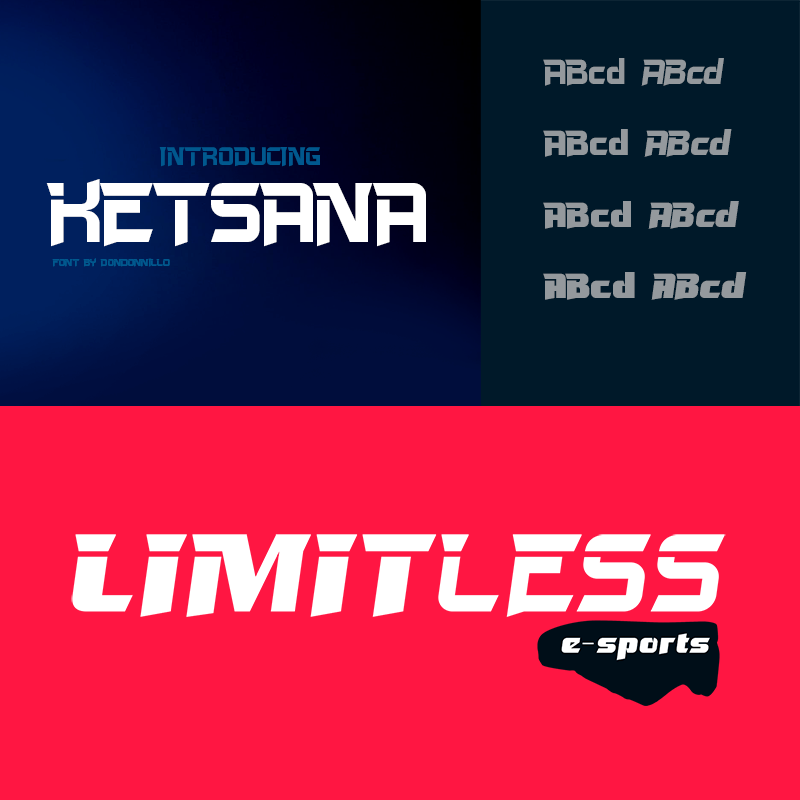
Font name: | Ketsana |
Author: | Onyx Font Foundry |
Note by Onyx Font Foundry | |
Ketsana features an incredibly minimalist and sporty style, making it great for futuristic, techno, hi-tech, and sports logo design. for commercial use grab the font here: https://www.creativefabrica.com/product/ketsana/ref/163291/ https://www.behance.net/dondon_nila056 |